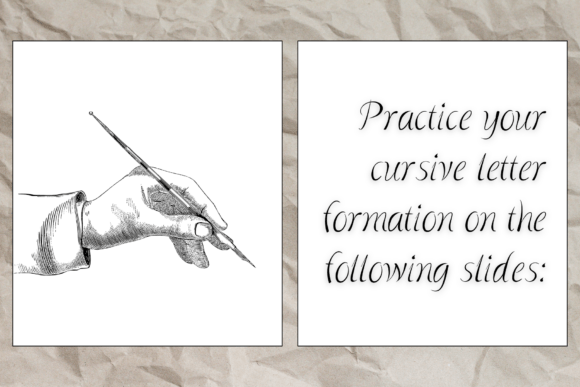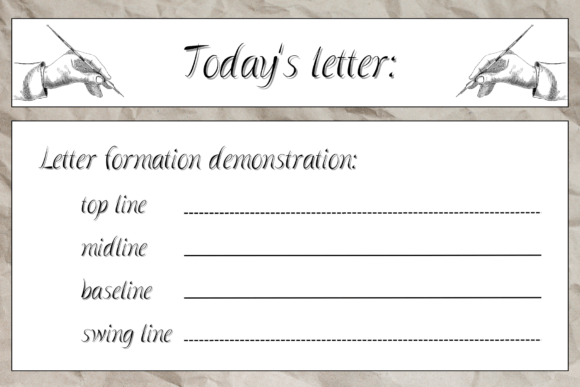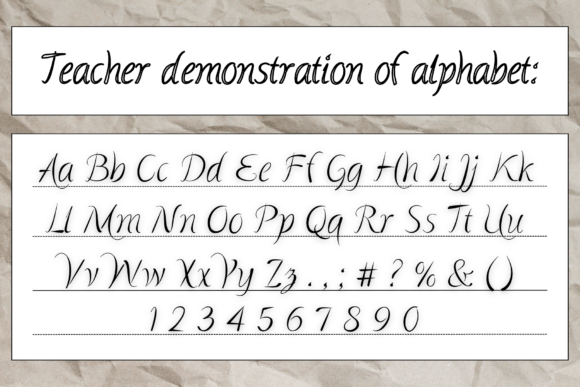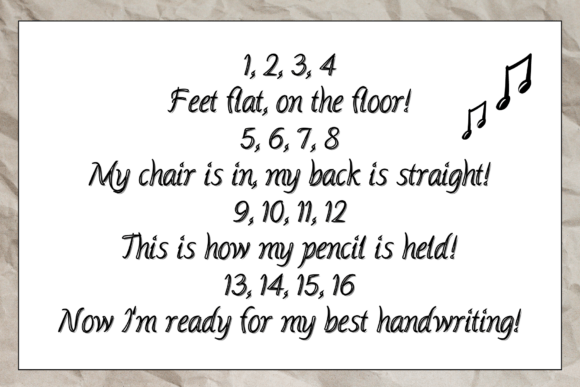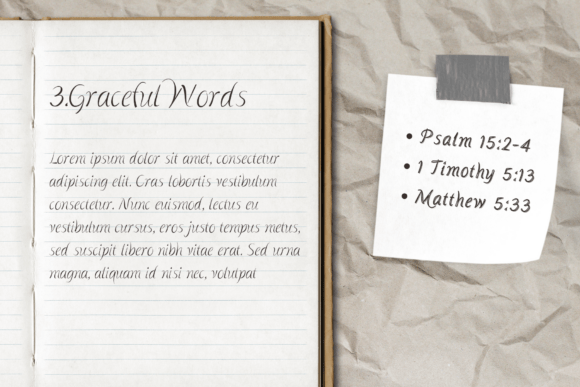
Introduction to Handwriting Form Font
Remember that moment when you finally find the perfect design element for your creative project? The one that makes everything fall into place and elevates your work to the next level? That’s exactly what we’re excited to introduce you to – the Handwriting Form Font. This exquisite handwritten font is not just a design resource, but a game-changer for any creative project that needs a touch of elegance and sophistication.
Whether you’re a seasoned designer or just starting out, the Handwriting Form Font is a valuable addition to your design arsenal. Its classy calligraphic influences and contemporary feel make it a versatile choice for a wide range of projects, from branding and advertising to editorial and web design. And the best part? This high-quality font is available for free download, allowing you to add a professional touch to your work without breaking the bank.
Key Features of Handwriting Form Font
- High-quality, unique handwriting font ideal for creative projects
- Perfect design resource for adding a personal touch to your work, with a high level of customization
- Unique characteristics: cursive, handwritten, elegant, and sophisticated feel, making it perfect for invitations, quotes, and more
Honest Review: Handwriting Form Font
I recently had the opportunity to work with the Handwriting Form Font, and I must say it’s a great addition to any designer’s toolkit. This font is perfect for creative projects that require a touch of personality and charm.
- High quality: The Handwriting Form Font is crisp and clear, making it easy to read even at small font sizes.
- Limited character set: While the font is great for headings and titles, it may not be suitable for large blocks of text.
- No bold or italic versions: This can make it difficult to create emphasis or highlight certain text.
Overall, I’m really impressed with the Handwriting Form Font. It’s a fantastic design resource that can add a lot of character to your creative projects. While it may have some limitations, it’s still a great option for designers who want a high-quality, free font.